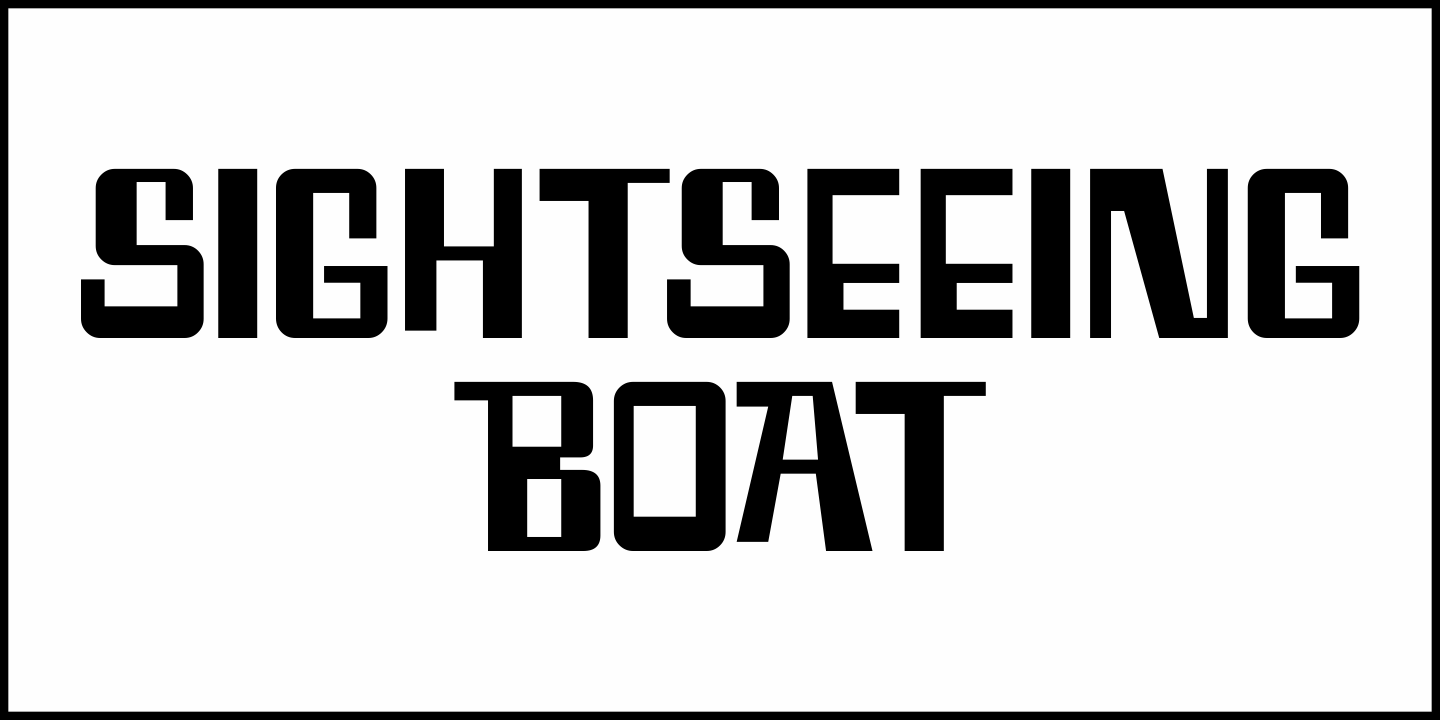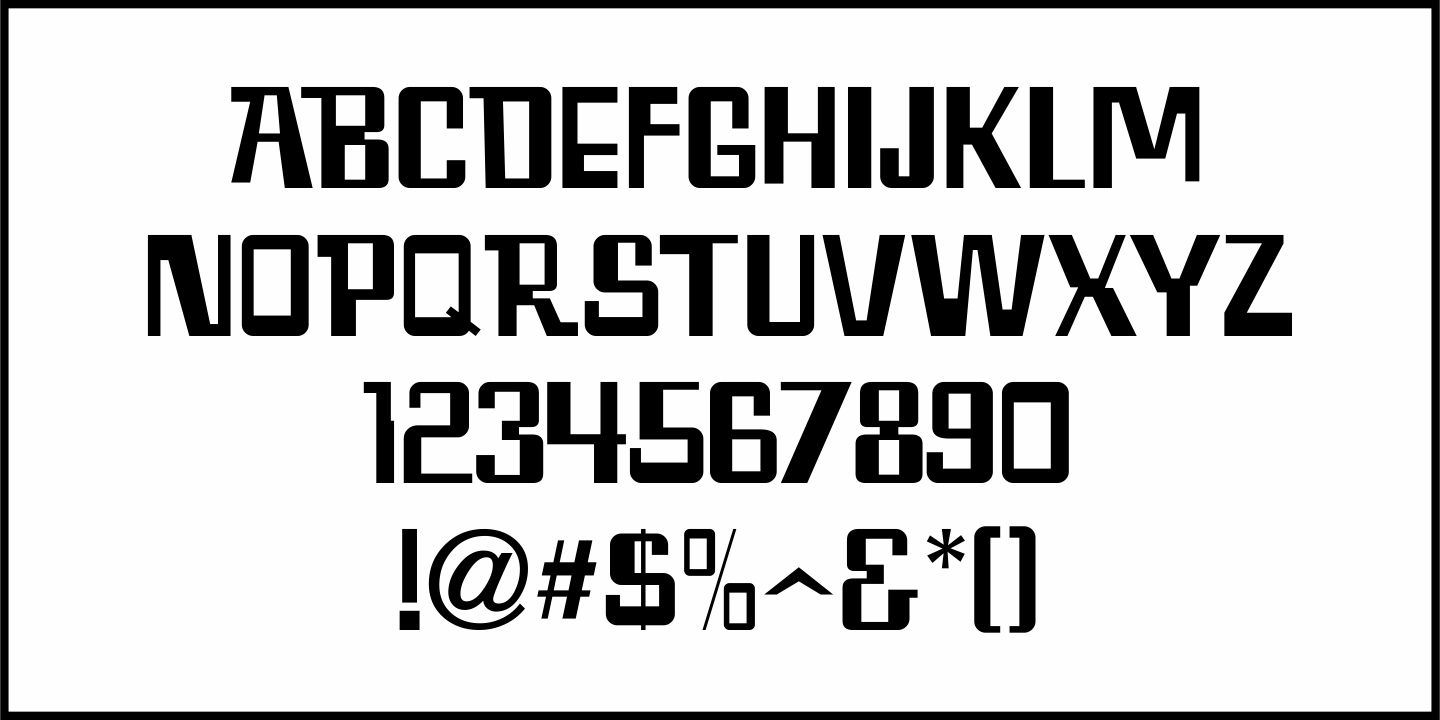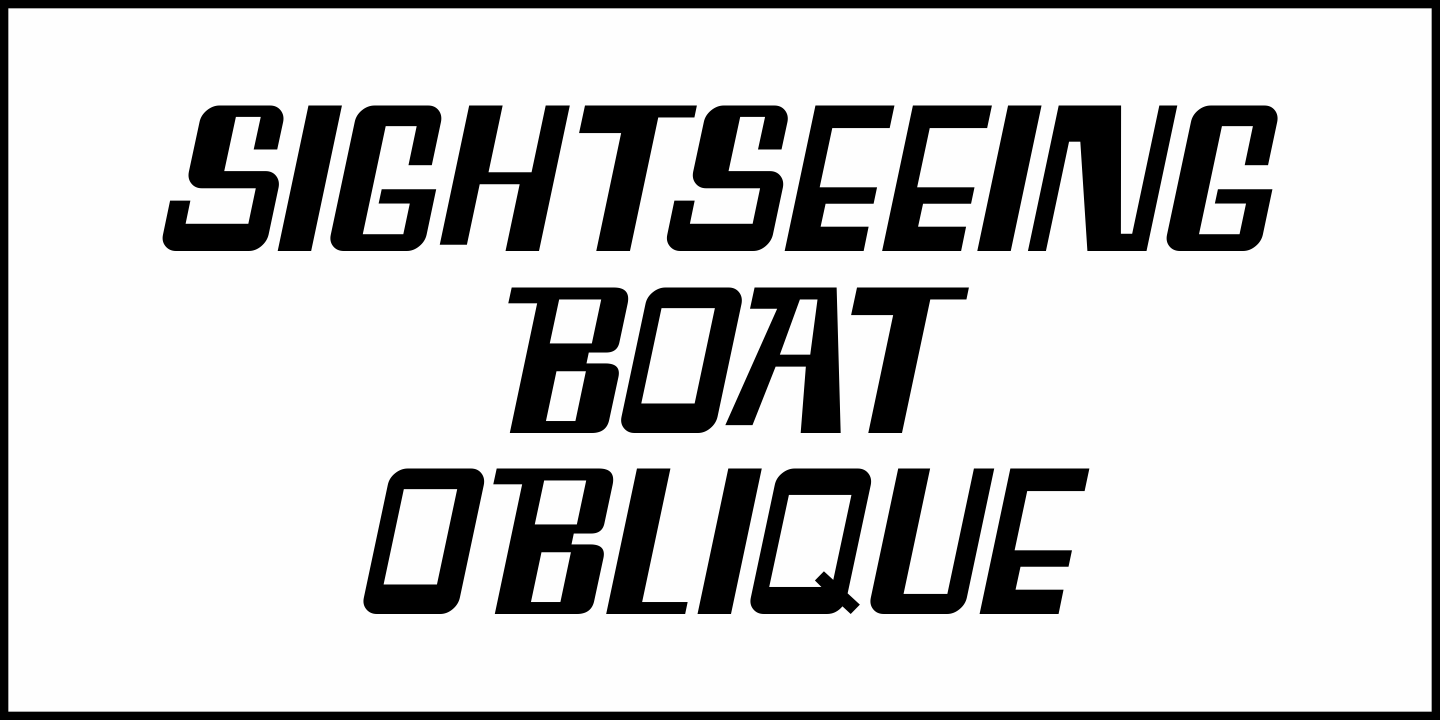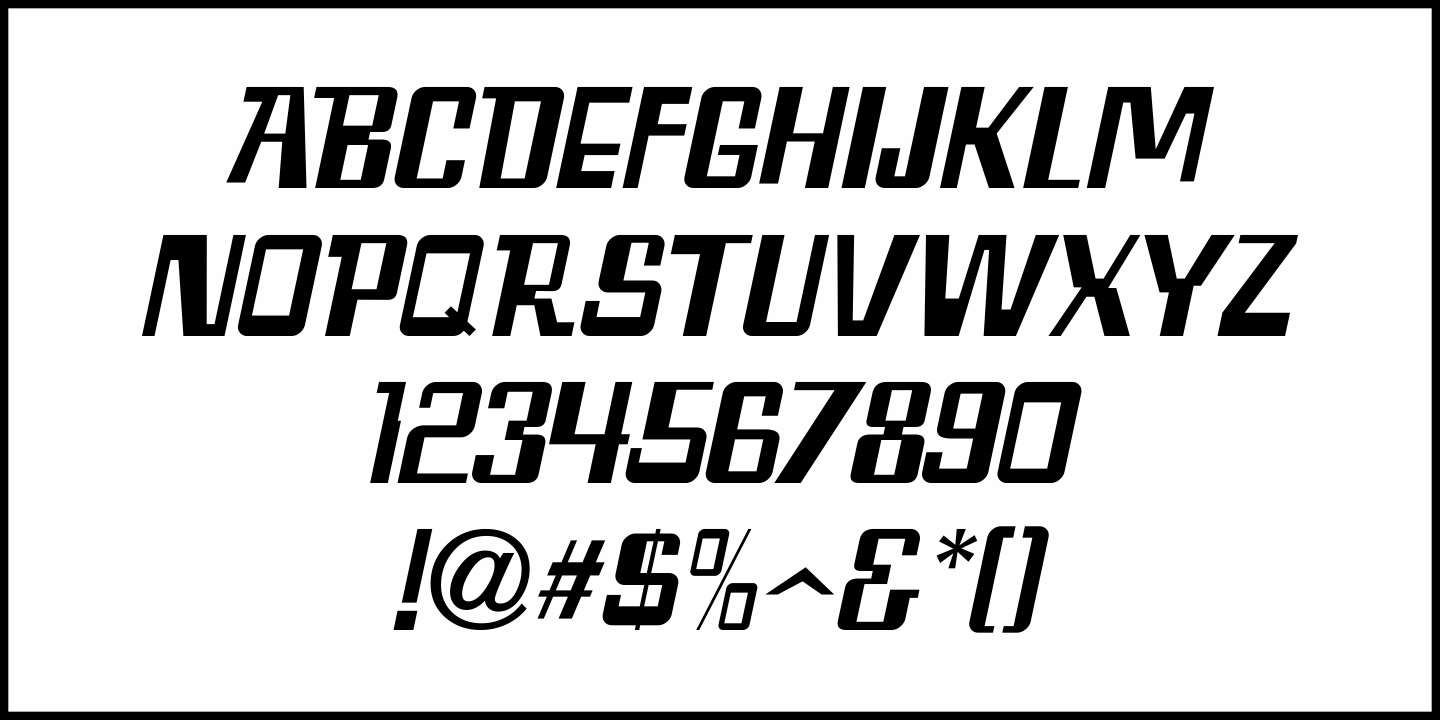
Sightseeing Boat
The free form hand lettering comprising the titles and credits for the 1966 romantic comedy “The Glass Bottom Boat” were the model for Sightseeing Boat JNL, which is available in both regular and oblique versions.